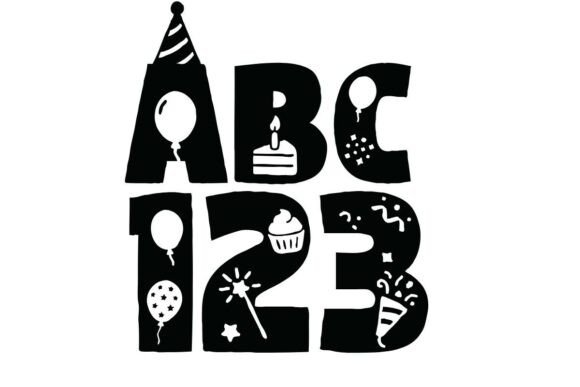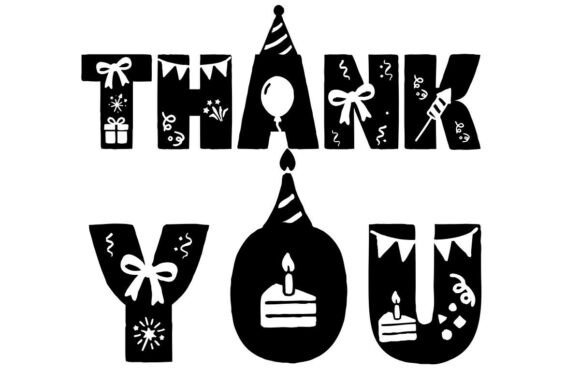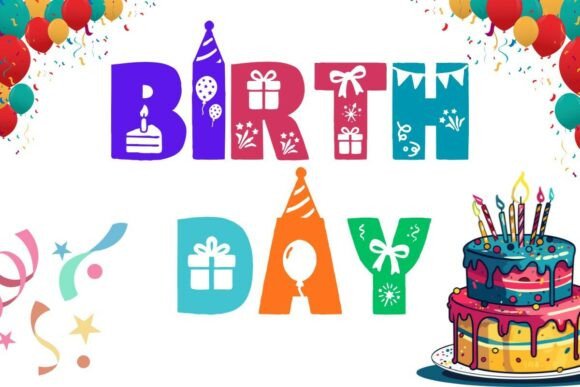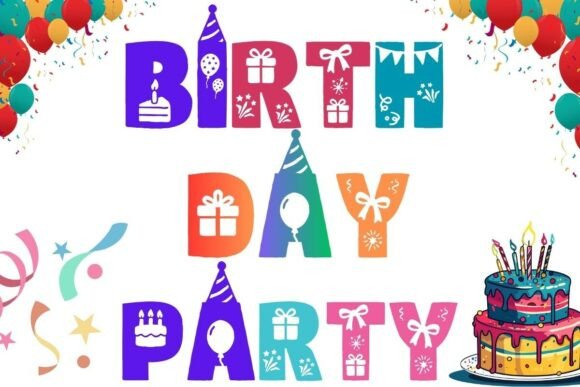
Celebrate Every Occasion in Style with the Birthday Party Font
Are you tired of using the same old fonts for your party invitations, greeting cards, and decorations? Look no further! The Birthday Party Font is here to add a touch of fun and excitement to your designs. This bold, playful, and cheerful display typeface is perfect for creating eye-catching titles and decorations that will make any celebration pop.
A Font that Captures the Joyful Spirit of Birthdays and Celebrations
The Birthday Party Font is designed to capture the joyful spirit of birthdays and celebrations. Its fun lettering and chunky, playful block letters are uniquely filled with stylized graphic elements related to parties and birthdays, such as balloons, birthday hats, gift boxes, and confetti. This font is not just a typeface, but a vibrant visual toolkit that transforms standard text into instant party décor.
The Birthday Party Font is versatile and can be used for a variety of design projects, including:
- Party invitations and greeting cards
- T-shirts and other apparel
- Mugs and other ceramics
- Digital and print media
Key Features of the Birthday Party Font
The Birthday Party Font has several key features that make it stand out:
- Bold and playful design: The font’s bold and playful design makes it perfect for creating eye-catching titles and decorations.
- Chunky, playful block letters: Each letter is uniquely filled with stylized graphic elements related to parties and birthdays.
- Embedded graphics: The font includes embedded graphics, such as balloons, birthday hats, gift boxes, and confetti, which add to its festive energy.
- Bright, multicolor gradient: The font’s bright, multicolor gradient further amplifies its festive energy.
- Robust, all-caps structure: The font’s robust, all-caps structure ensures maximum visibility.
Why Choose the Birthday Party Font?
There are several reasons why you should choose the Birthday Party Font for your design projects:
- Instant happiness: The font’s fun and playful design adds instant happiness to any design.
- Perfect for celebrations: The font is specifically designed for celebrations, making it perfect for birthdays, parties, and other special occasions.
- High-impact titles and decorations: The font is perfect for creating high-impact titles and decorations that will make any celebration pop.
Tips for Using the Birthday Party Font
Here are some tips for using the Birthday Party Font:
- Use it for titles and headings: The font is perfect for titles and headings, where you want to make a big impact.
- Experiment with colors: The font’s bright, multicolor gradient is a key feature, so experiment with different colors to find the perfect combination.
- Combine it with other fonts: The Birthday Party Font can be combined with other fonts to create a unique and interesting design.
- Use it for digital and print media: The font can be used for both digital and print media, making it versatile and convenient.
| Font Name | Birthday Party Font |
| Author | Crea8tivedezines |
The Birthday Party Font is a fun and playful display typeface that is perfect for creating eye-catching titles and decorations for any celebration. Its bold and playful design, chunky block letters, and embedded graphics make it a vibrant visual toolkit that will add instant happiness to any design. Whether you’re a designer or a crafter, this font is a must-have for any celebration.